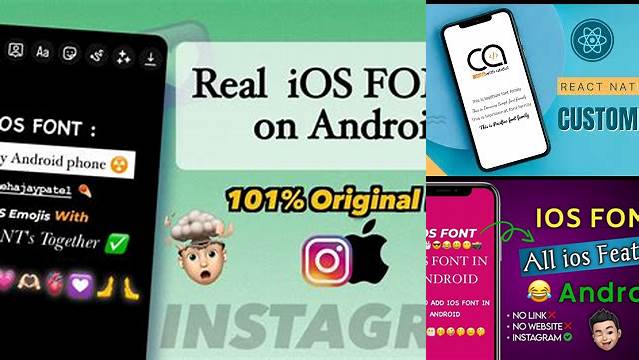
IOS Fonts On Android: Your Ultimate Guide
Hey there, tech enthusiasts! Ever looked at an iPhone and thought, "Man, those fonts are slick!" and wished you could get the same look on your Android device? Well, you're in luck! This guide is all about how to get iOS fonts on Android, turning your Android phone into a visual treat with those elegant iOS fonts. We'll dive deep into the process, making it super easy to follow, even if you're not a tech wizard. Let's get started and transform your Android's typography game!
H2: Why Use iOS Fonts on Android?
Alright, let's kick things off with a question: why bother with iOS fonts on Android in the first place? Guys, the answer is simple: aesthetics! iOS fonts are known for their clean lines, readability, and overall modern feel. Using them on your Android can drastically change how your phone looks and feels. Think about it: your phone is something you interact with every single day. Having a visually appealing interface can genuinely enhance your user experience. It's like upgrading from a basic car to a luxury one – both get you from point A to point B, but one does it with a lot more style. iOS fonts aren't just about looking cool; they can also make text easier to read, especially if you're someone who spends a lot of time reading on your phone. Some people simply prefer the iOS aesthetic. They might love the look and feel of Apple products and want to bring a touch of that to their Android device. It's all about personal preference and customization, which is a massive part of what makes Android so great. There is also a sense of novelty and uniqueness. Android is all about customization, so why not show off your device with fonts that make it stand out? Plus, switching fonts is a pretty easy way to refresh your phone’s look without having to change much. By getting iOS fonts on Android, you're essentially giving your phone a mini-makeover. It's about expressing your personality and making your device truly yours. It's all about creating an experience that you enjoy. So, whether you're after a sleek new look or simply want to try something different, the possibilities are endless, and the customization options are vast!
H2: Understanding the Basics: Fonts and Android
Before we jump into the nitty-gritty of how to get iOS fonts on Android, let's get a handle on some basic concepts. First things first: what exactly are fonts? In the simplest terms, a font is a set of characters – letters, numbers, symbols – that share a specific design. Think of it as a typeface; each one has its unique style, from the bold and playful to the sleek and professional. Android, being the versatile operating system that it is, allows you to change your device's font, which is a great way to personalize your phone. The system fonts are what determine how text appears across your phone’s interface, from the menus and settings to the apps and messages. Android devices typically come with a few pre-installed fonts, but the cool part is that you can often install others. The operating system supports various font formats, including the most common ones. Android allows you to change fonts through the settings menu, or through third-party apps, each offering its own unique approach to font management. Getting iOS fonts on Android involves essentially installing and applying a font file that mimics the iOS style. It’s like swapping out the car's tires for a different tread; it's changing the appearance without altering the core functionality. Fonts play a significant role in your overall user experience. They affect readability, visual appeal, and the overall impression your device gives off. A well-chosen font can make the interface more intuitive and enjoyable to use. Understanding these basic concepts gives you the foundation you need to customize your Android's look with iOS fonts or any other font you like. So next time, you look at your phone, remember that a simple change in font can make a world of difference!